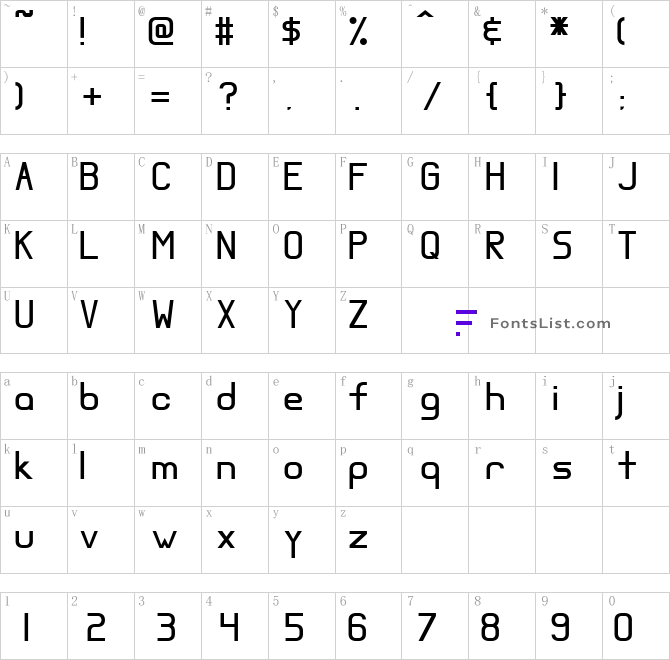
- Font Name:Almost Serious
Almost-Serious.ttf is a very beautiful artistic font, Almost-Serious.ttf is widely used in the design and printing of various books and pictures,Almost-Serious.ttf has a strong visual impact,Almost-Serious.ttf is a commonly used font in newspapers, magazines and books, and is used in posters, e-commerce Poster design, store design, logo design, font design and other fields.Almost-Serious.